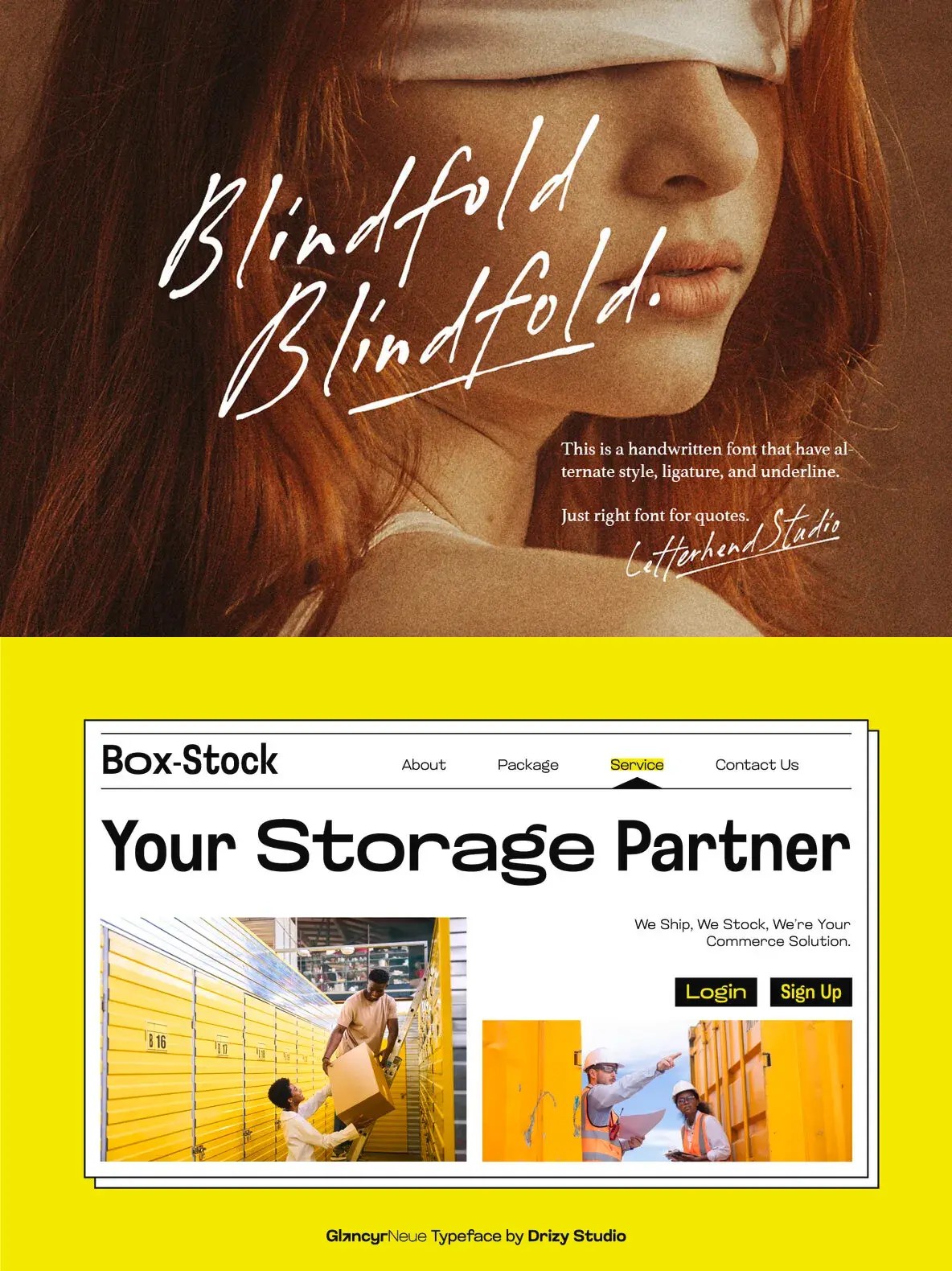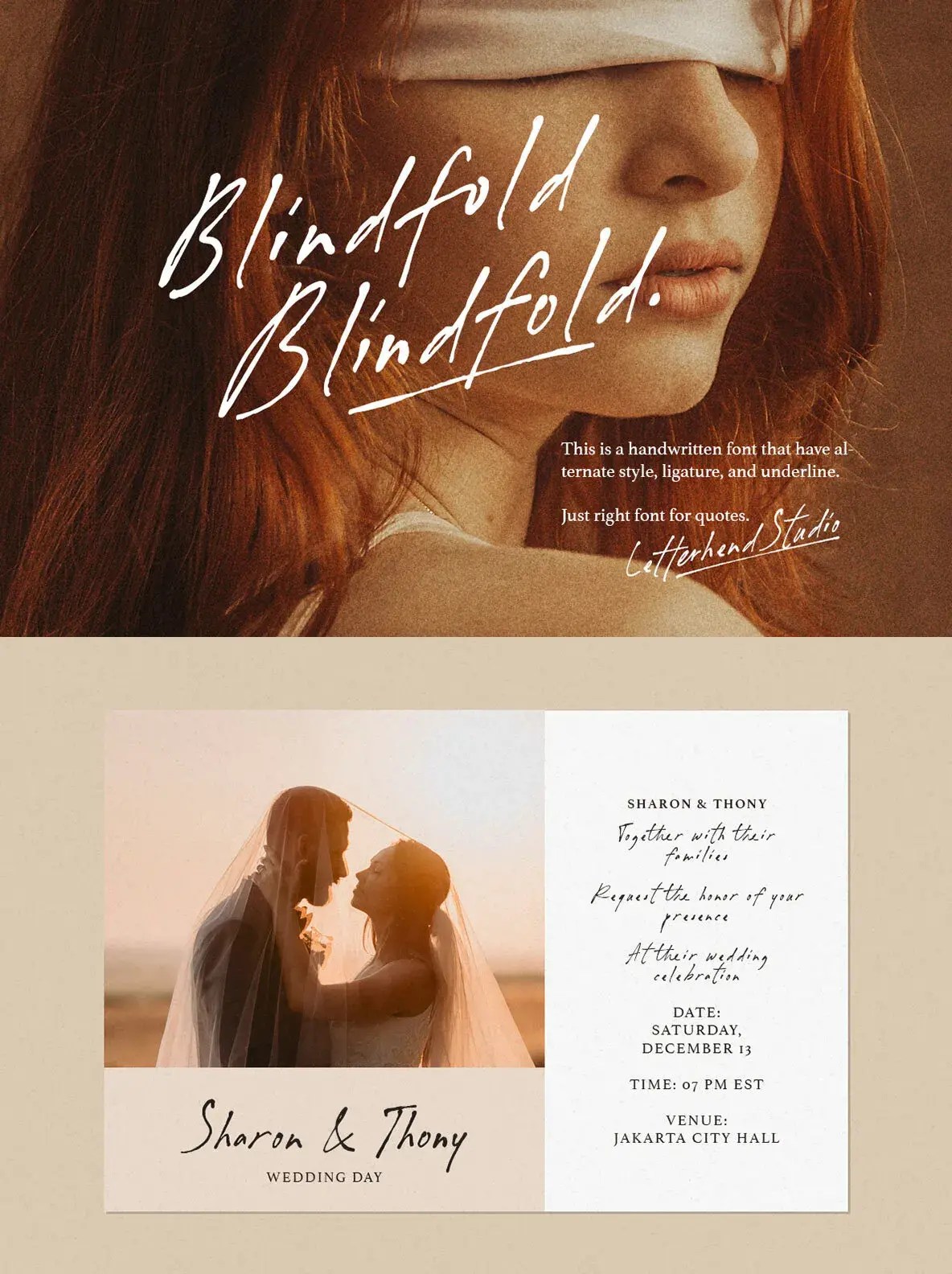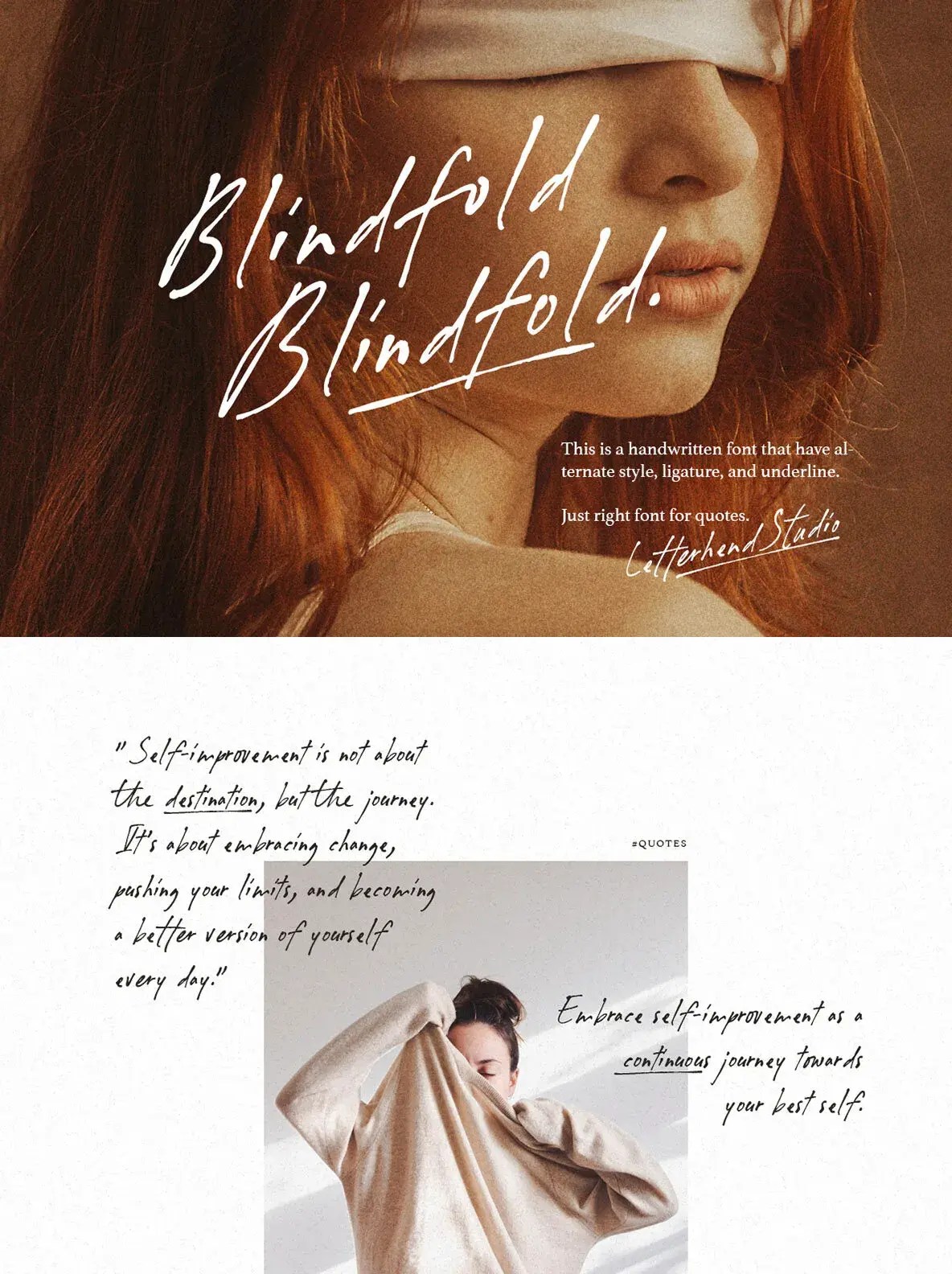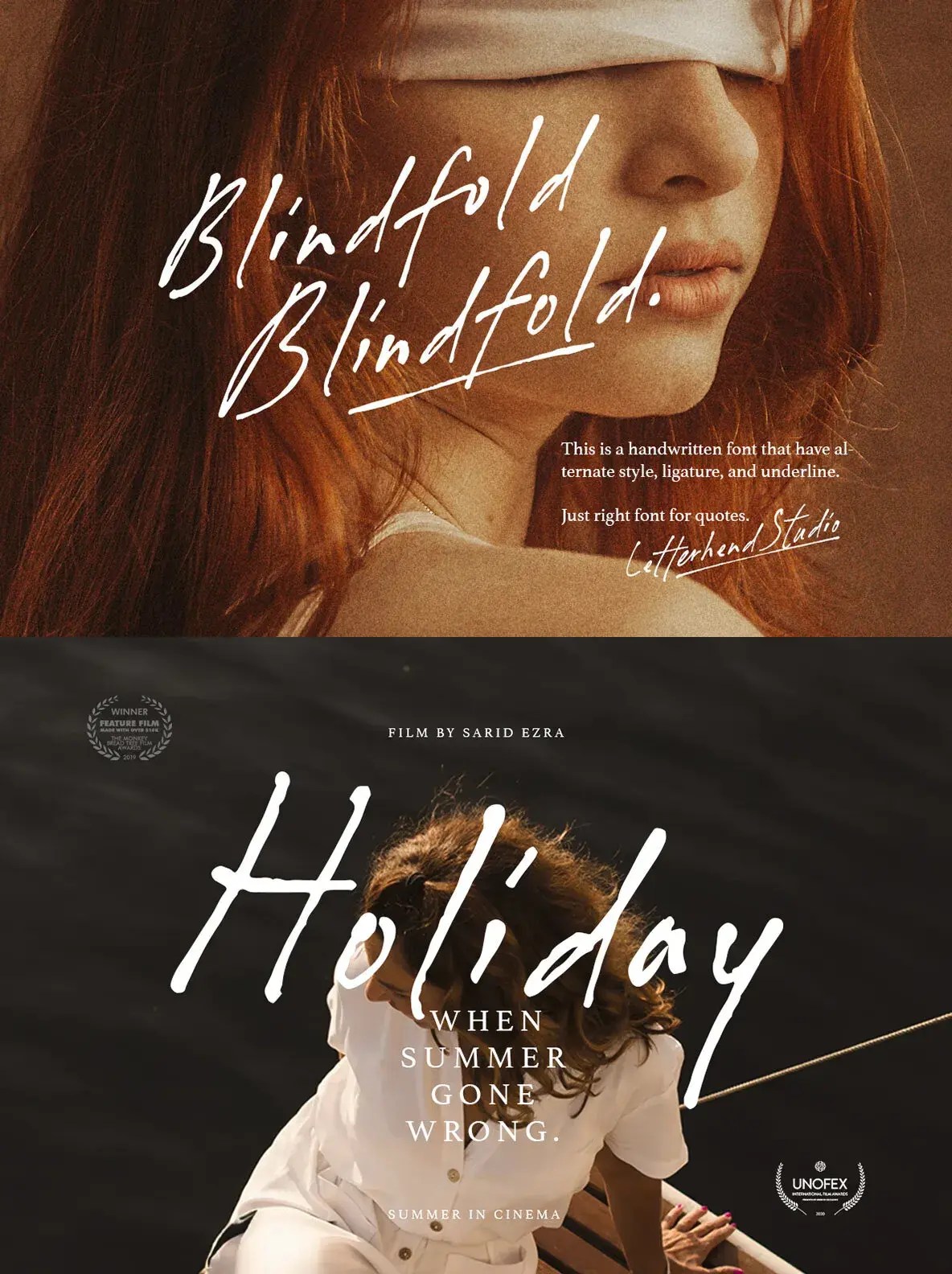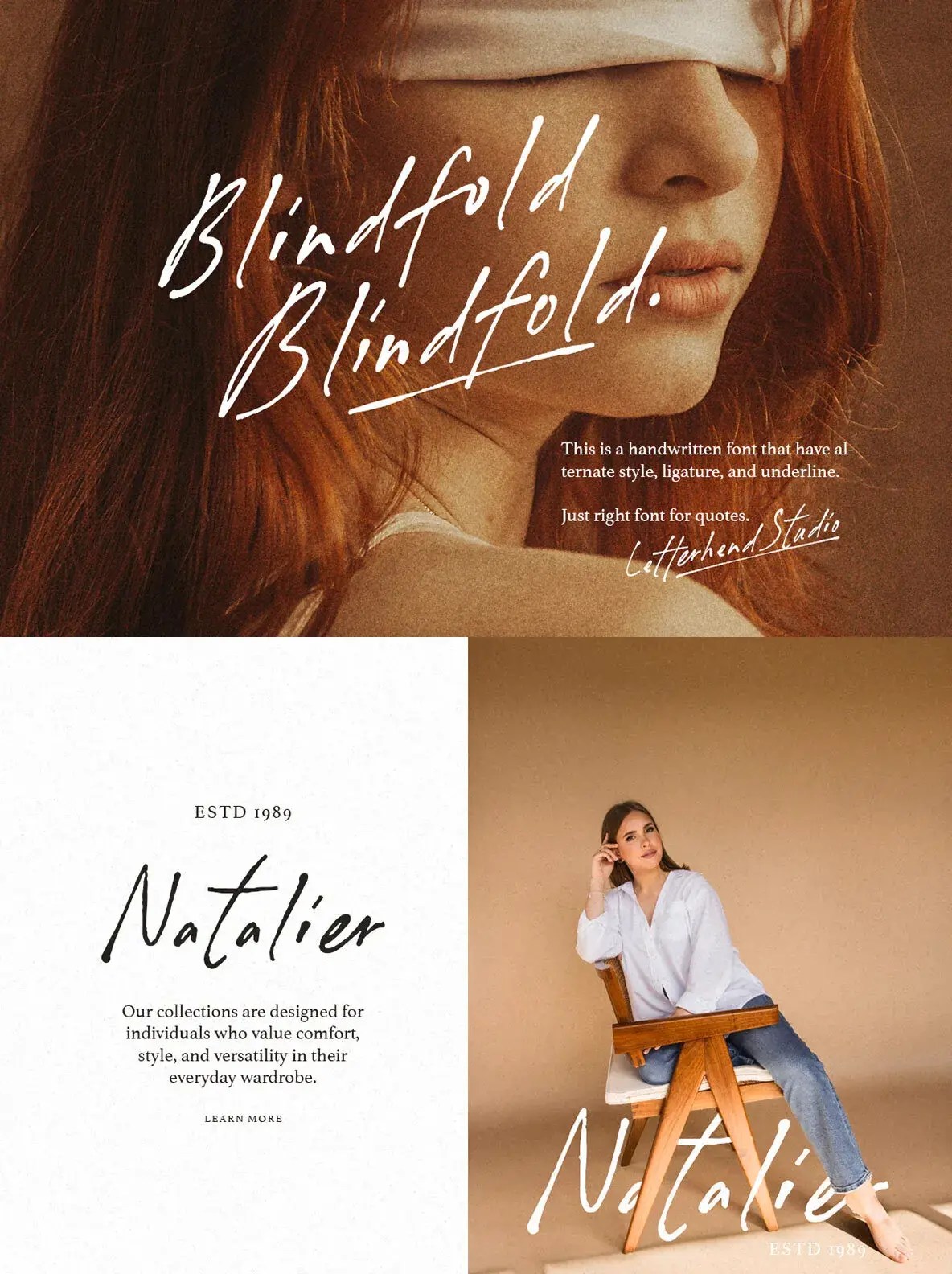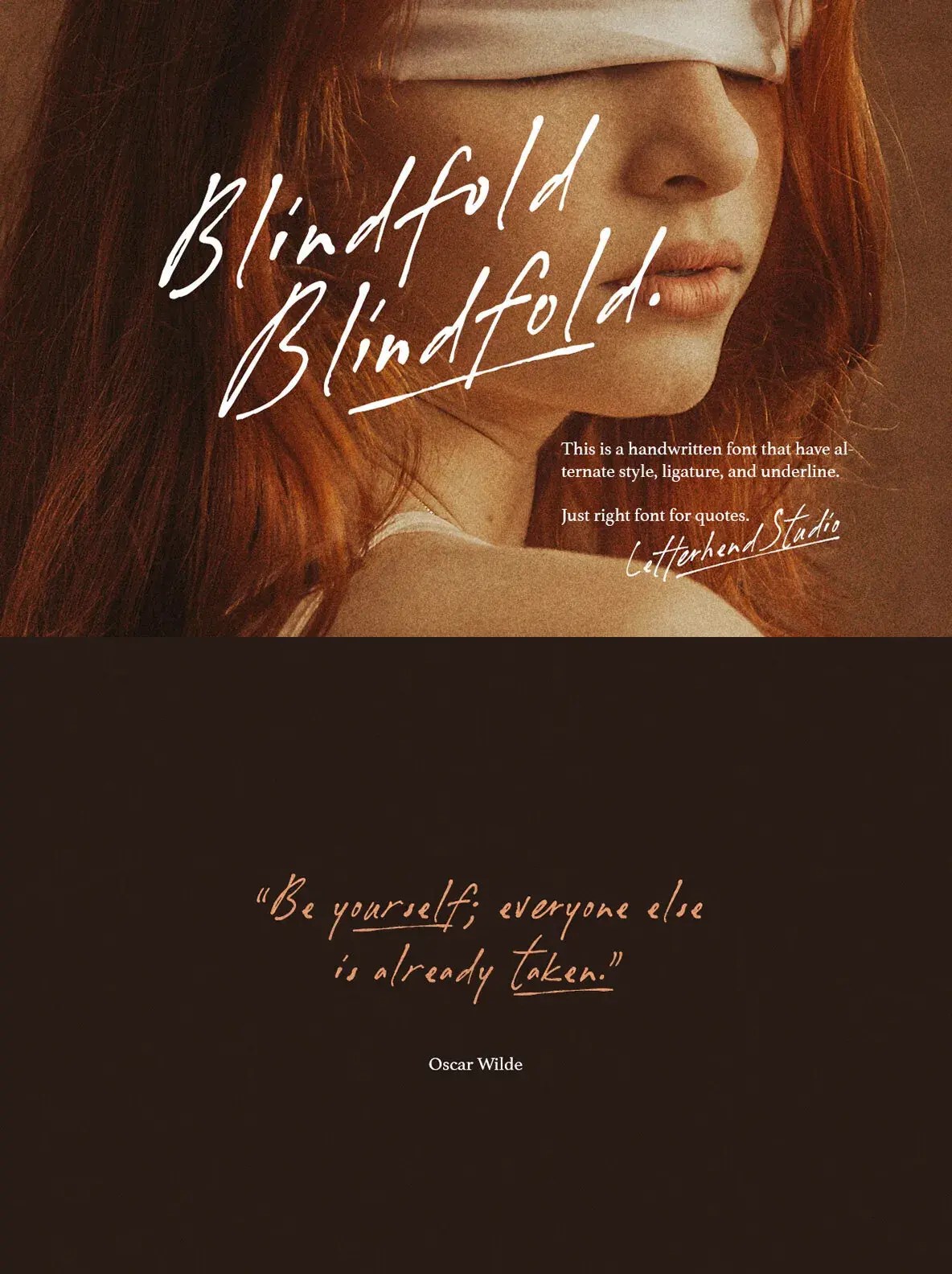
Blindfold Font
Organic signature script font for graphic designers. Perfect for logos,
headlines, and more. Ideal for various formal designs. SKU T24737